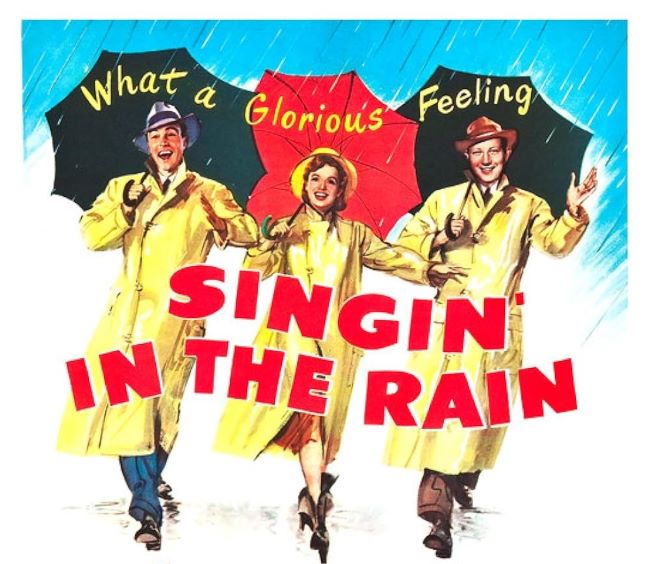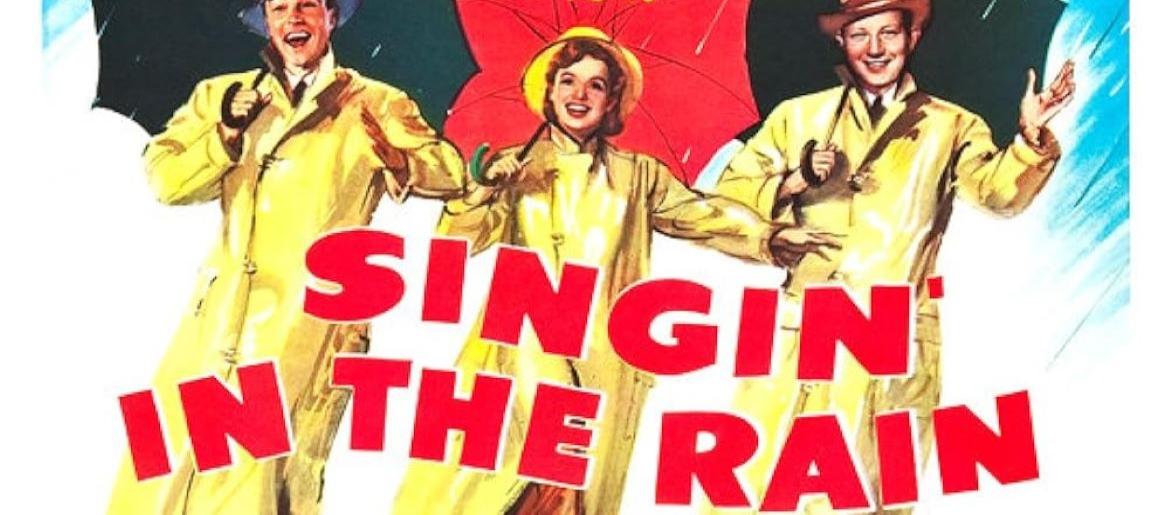
Singing in the Rain Font
The Singing in the Rain font reflects the joyful spirit of one of Hollywood’s most beloved musicals. Released in 1952, the film has become synonymous with charm, color, and unforgettable performances—qualities that also shine through in its playful typography. The original title design uses a bold, cheerful lettering style that feels theatrical and full of movement, perfectly complementing the movie’s energy and Gene Kelly’s iconic dance in the rain.